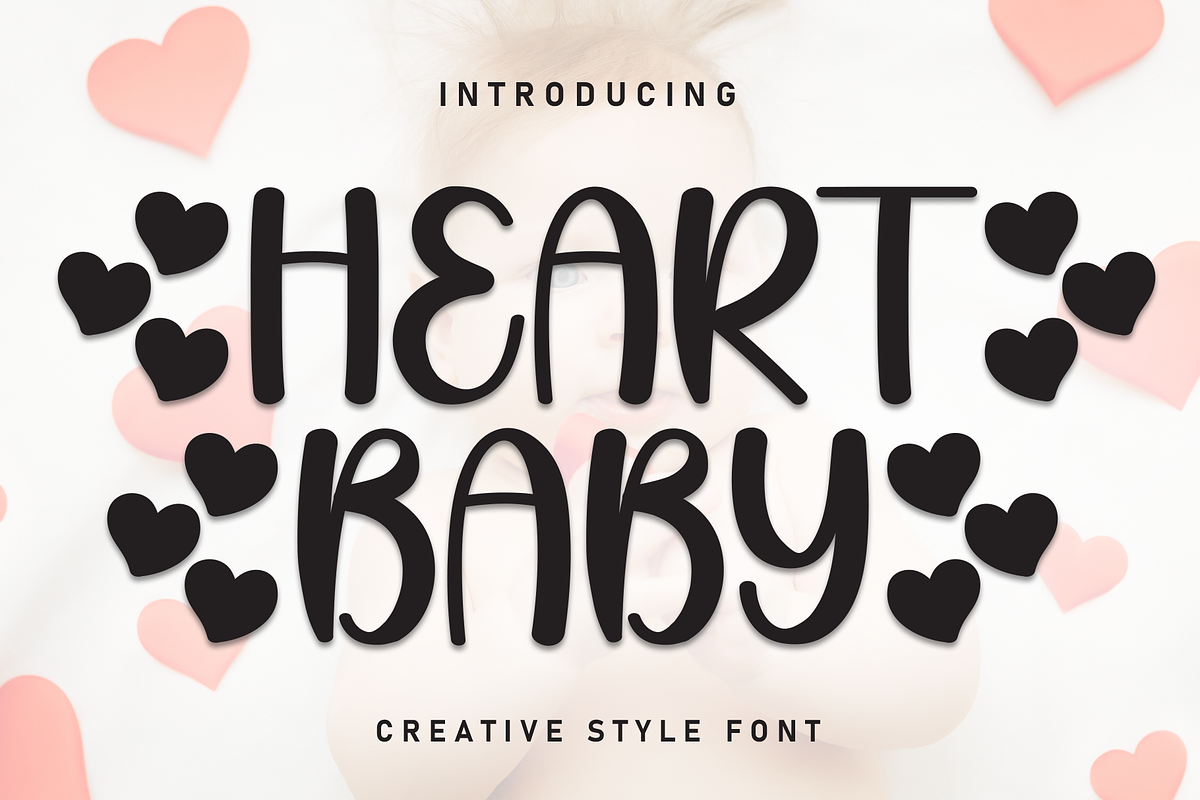
Heart Baby | Script Font Free Download is a sweet and playful handwritten typeface that radiates love, warmth, and charm. With its soft curves, heart-themed flourishes, and bouncy baseline, this font is perfect for baby shower invitations, nursery decor, kids’ apparel, greeting cards, and romantic design projects.
Its monoline script style makes it both fun and legible, giving your designs a personal, heartfelt touch. Whether you're creating for Valentine’s Day, children’s products, or a dreamy brand identity, Heart Baby adds just the right dose of cuteness and elegance.
Spread love and joy in every letter with the adorable charm of Heart Baby.